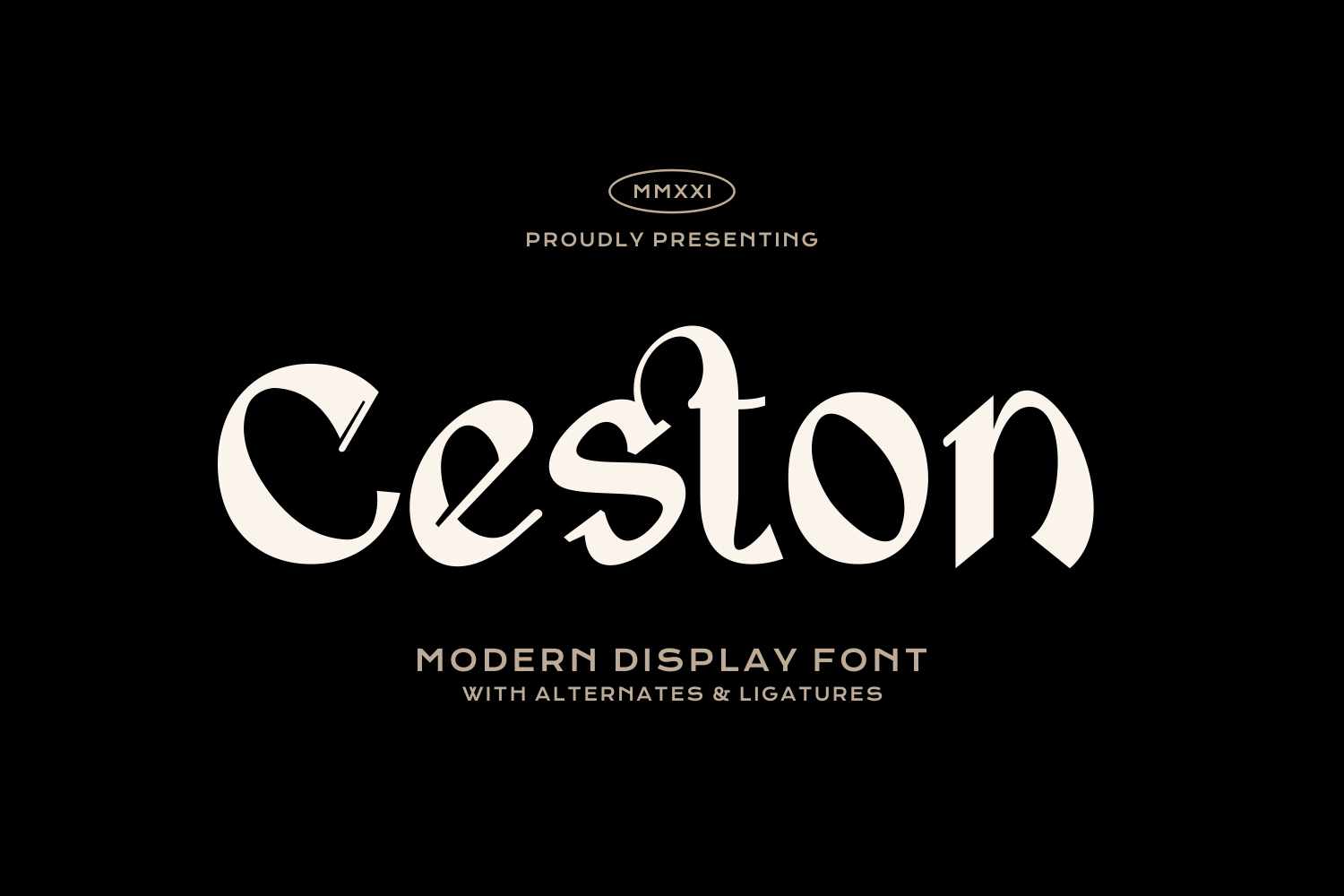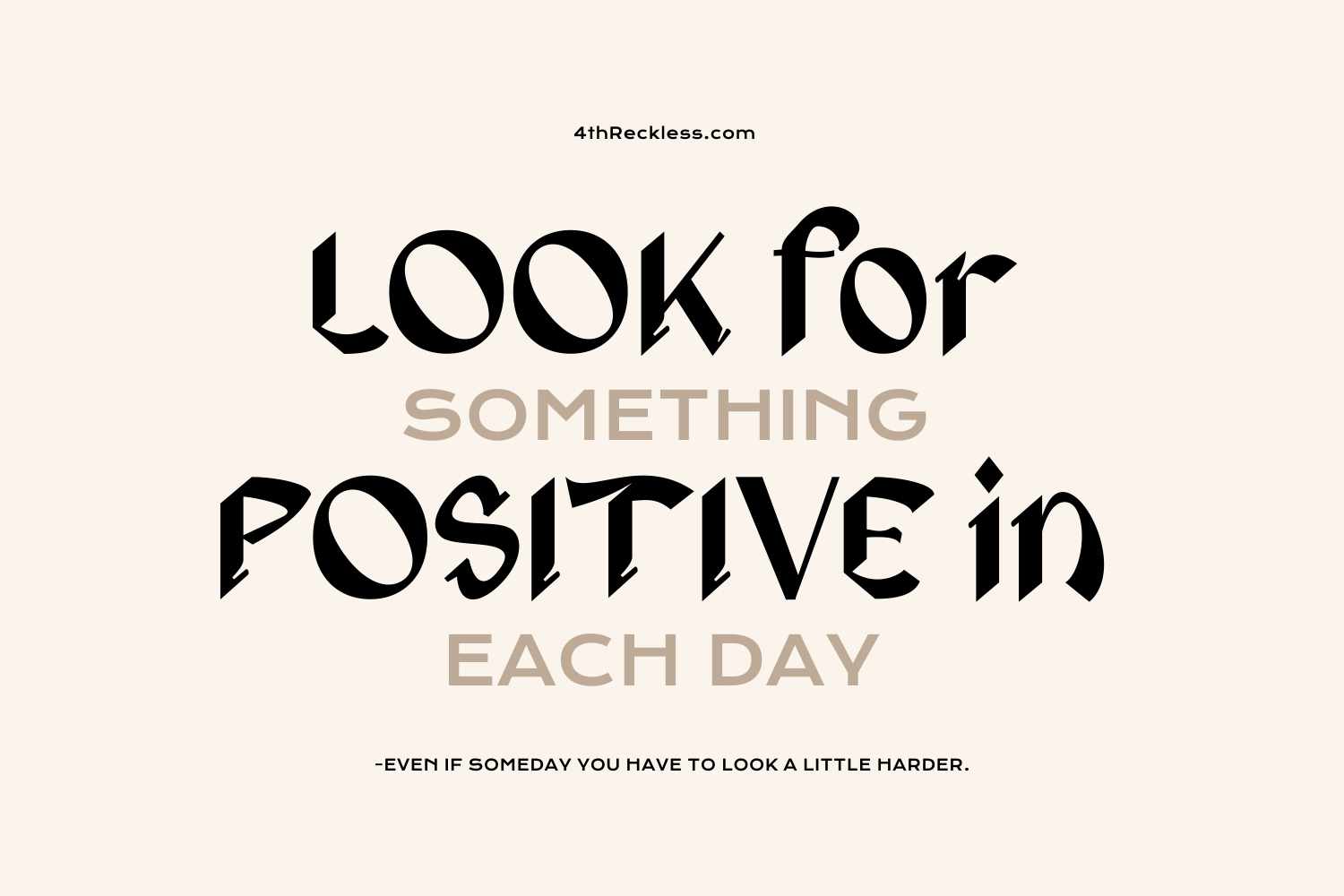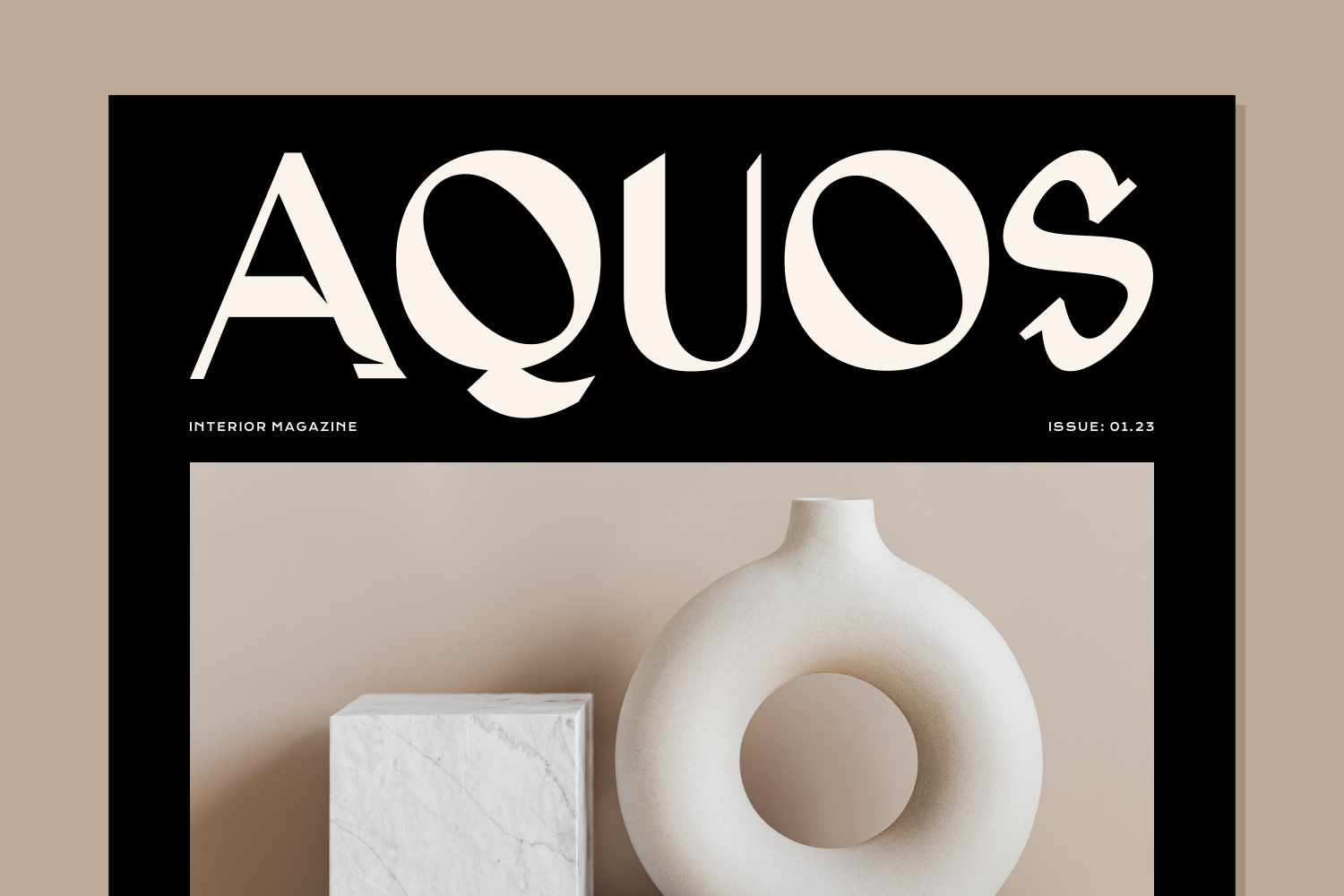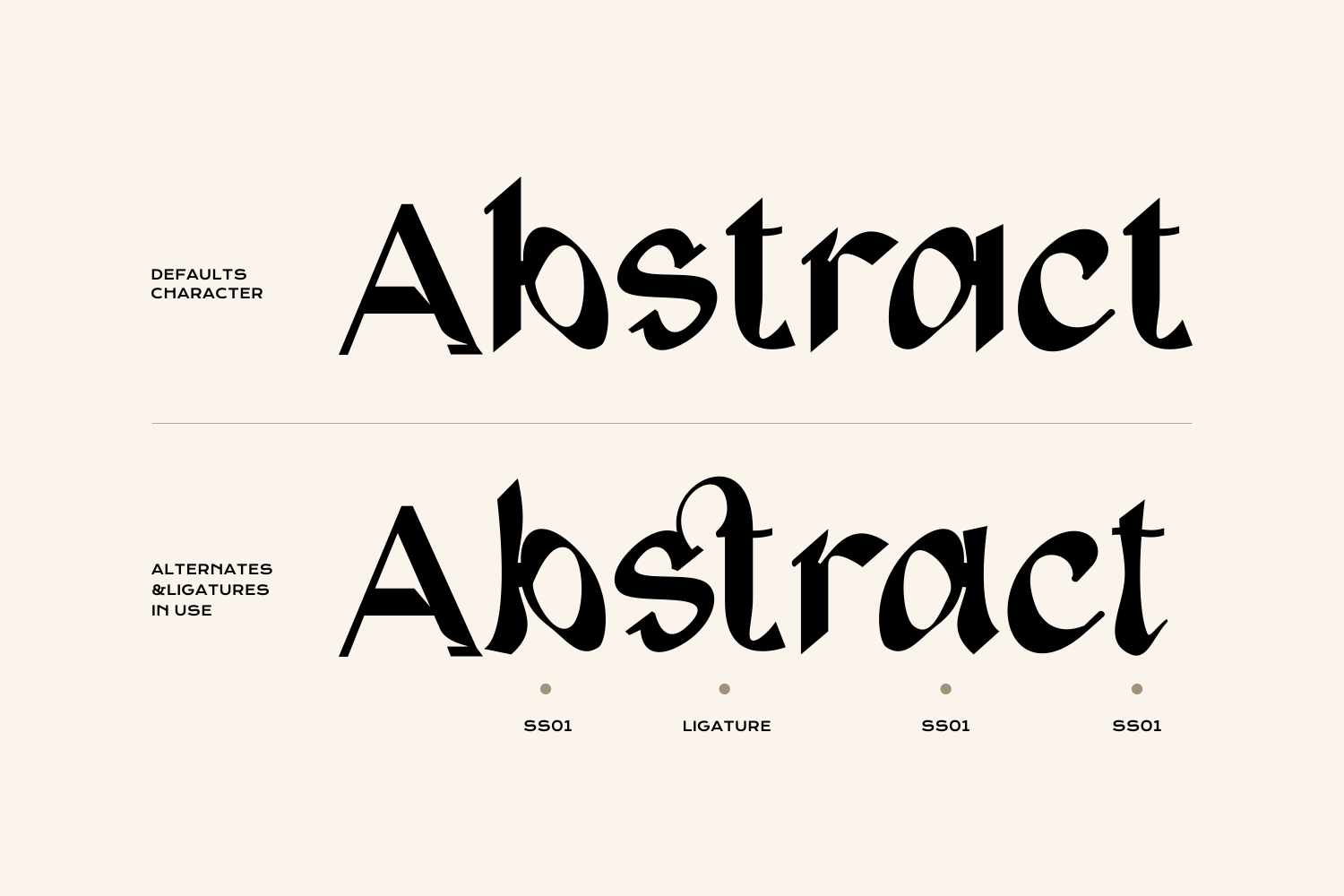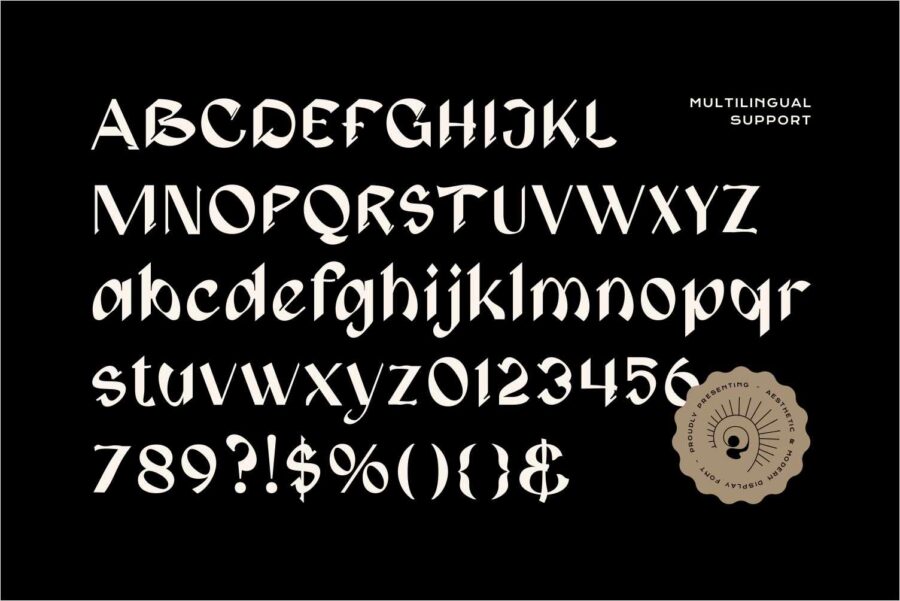
Ceston is a striking modern display font that blends classic serif elegance with bold, experimental forms. Its distinctively sharp strokes and smooth curves offer a contemporary Gothic-inspired vibe, enhanced by an array of alternate characters and creative ligatures. Perfect for high-impact headlines, editorial layouts, and branding, Ceston adds sophistication and personality to every design.
With multilingual support and beautifully crafted letterforms, Ceston thrives in both digital and print media. Whether you’re designing a fashion magazine, stylish poster, or a brand identity, Ceston ensures your typography feels artistic, premium, and editorially expressive.